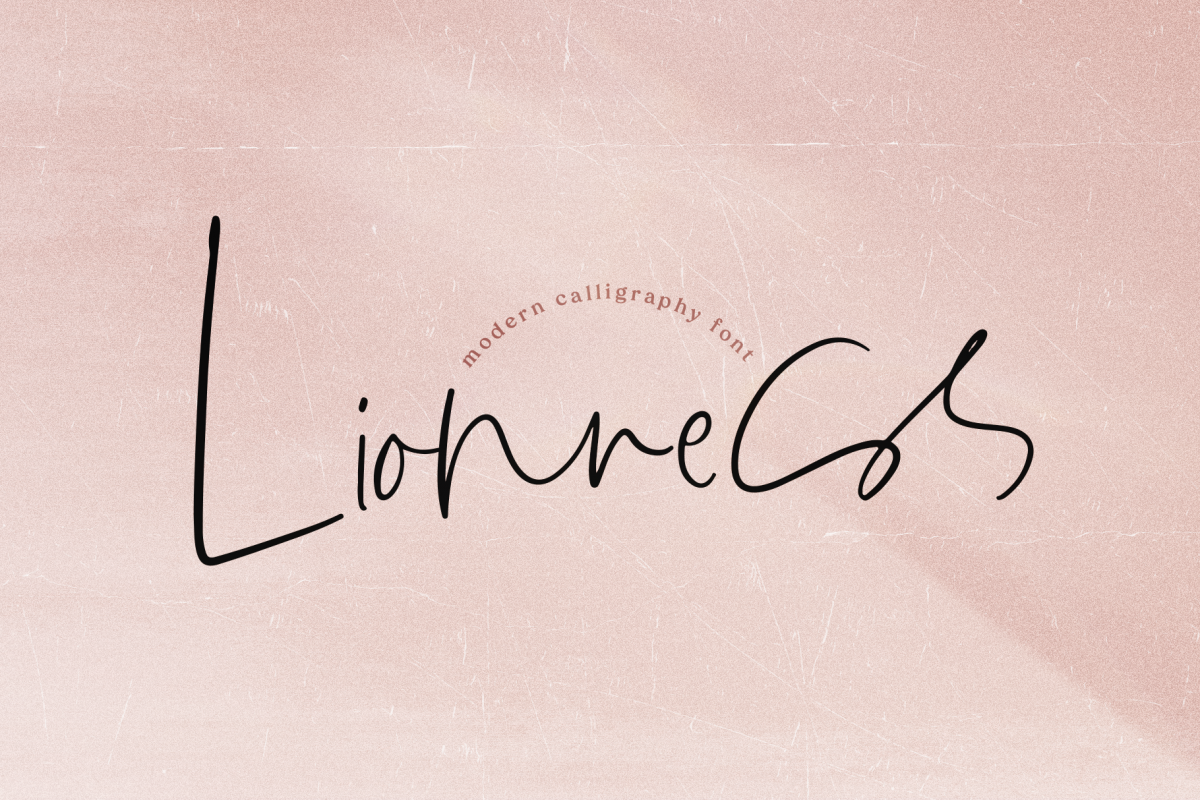
Lionness - A Handwritten Script Font
Lionness
Lionness is a handwritten script font with a modern calligraphy look!
Manhattan is perfect for modern projects, headings, blogs, logos, brandings, invitations and more!